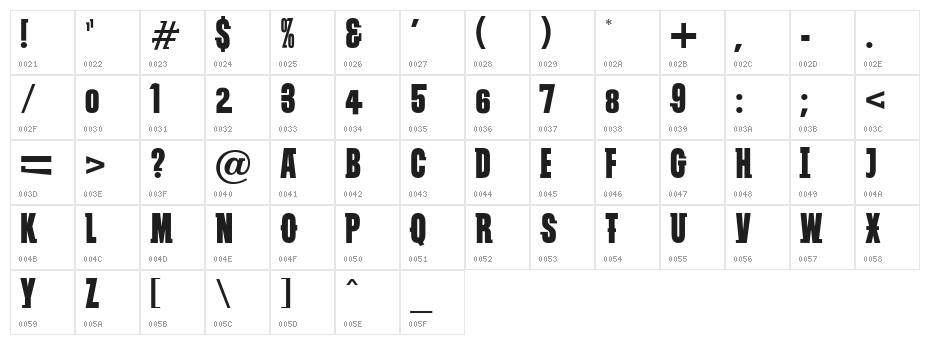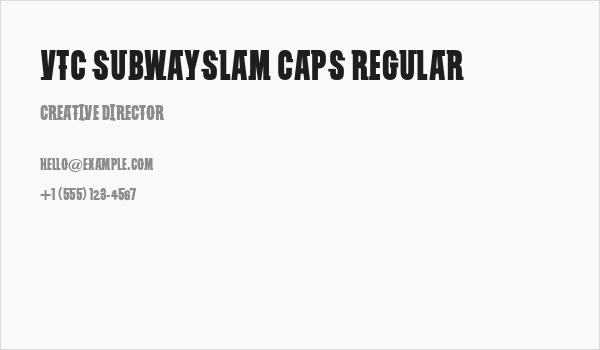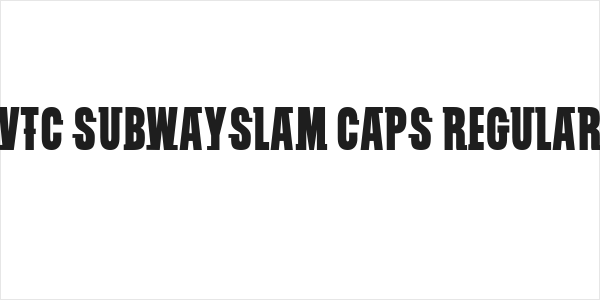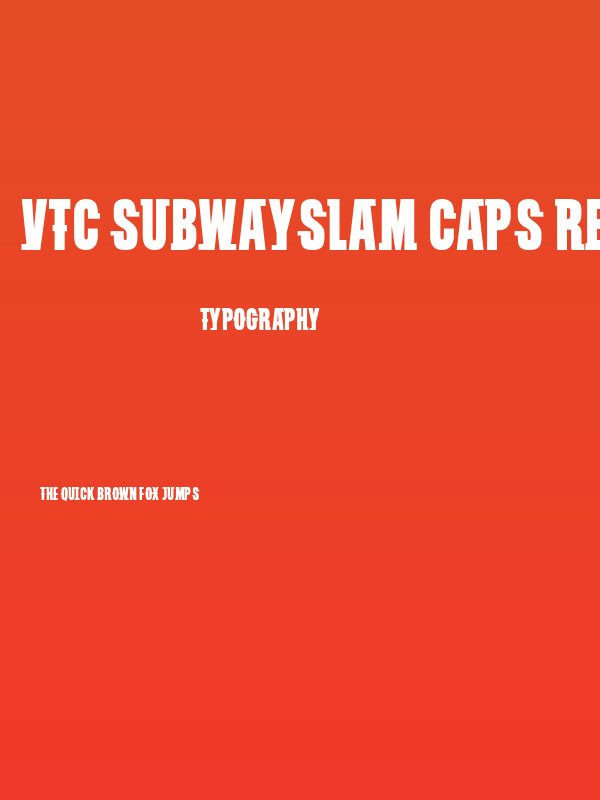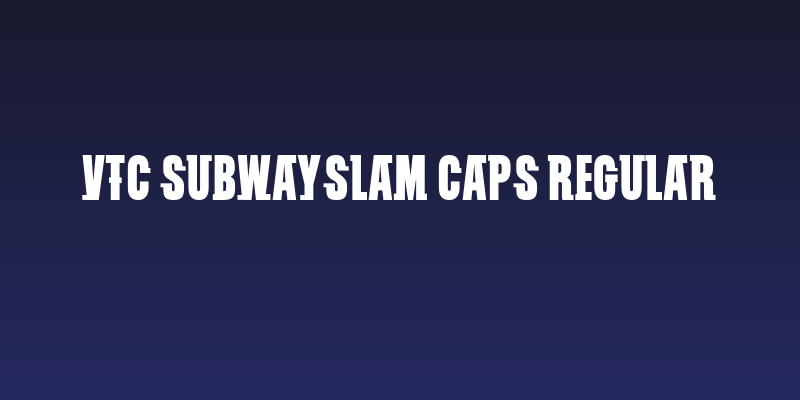
VTC SubwaySlam Caps Regular Font
VTC SubwaySlam Caps Regular Description
This font features a bold and impactful design with thick, blocky letters that convey strength and presence. The uppercase letters are uniform in height, creating a cohesive and structured appearance. The numbers and special characters maintain the same boldness, ensuring consistency across all elements. The font's style is reminiscent of urban and industrial themes, making it suitable for projects that require a strong and assertive visual impact. The character spacing is tight, enhancing the compact and powerful look of the text.
Overall StyleUrban, Industrial
Proposed ProjectsIdeal for posters, signage, branding, and any project needing a strong, impactful typeface.